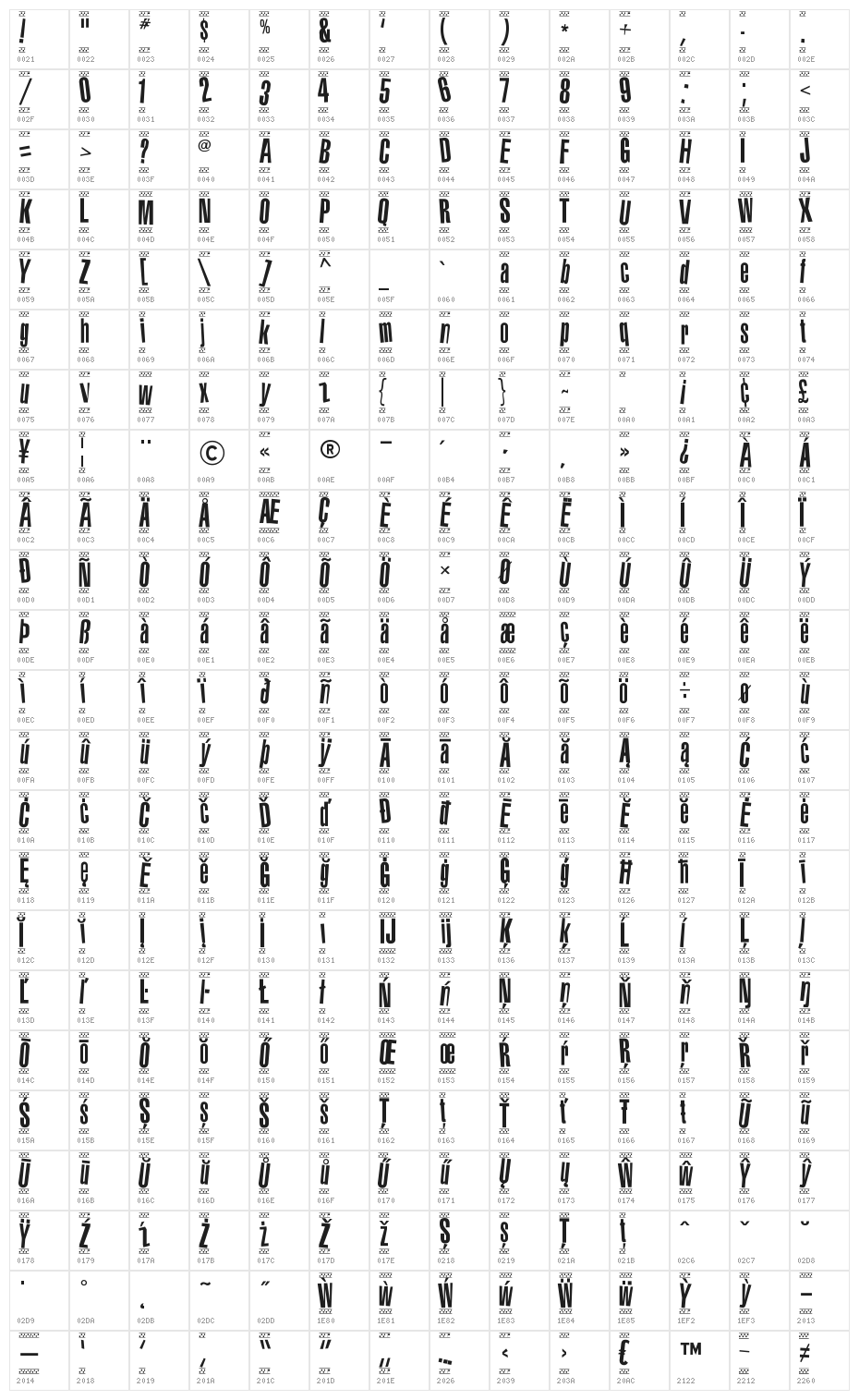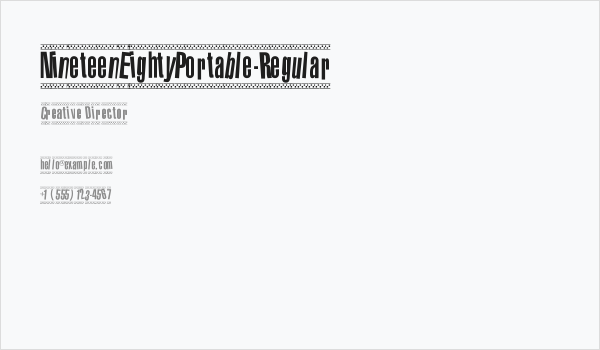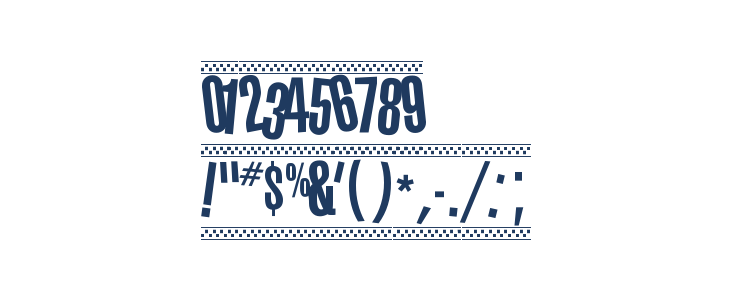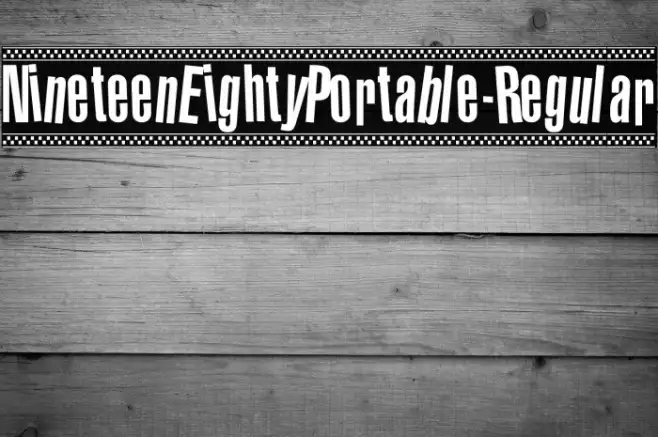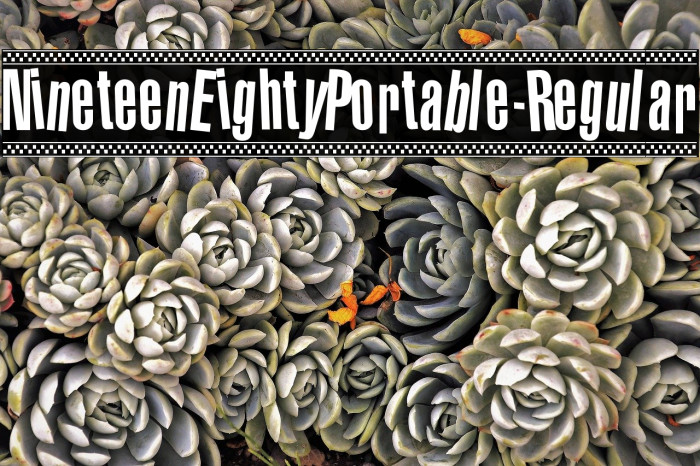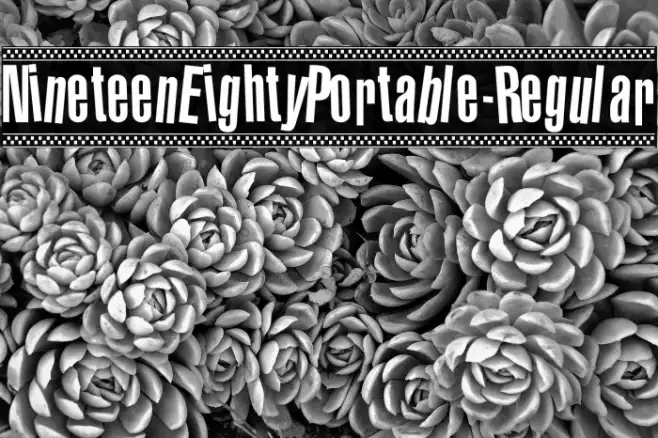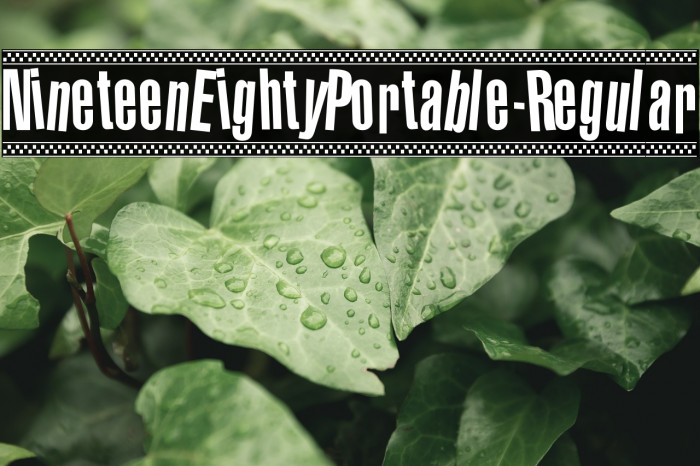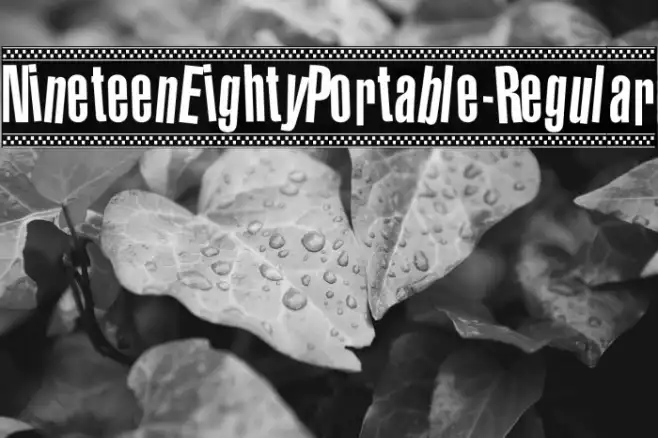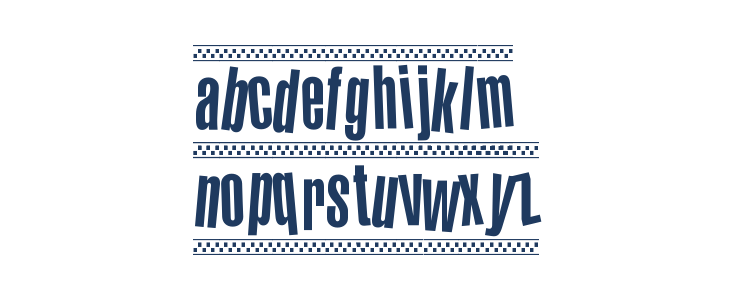
NineteenEightyPortable-Regular Font
NineteenEightyPortable-Regular Description
This font features a bold and dynamic style with a strong presence. The characters are tall and slightly condensed, giving a sense of urgency and movement. The uppercase letters are particularly striking, with sharp angles and a modern flair. The lowercase letters maintain the same boldness, ensuring consistency across text. The numerals are equally bold, making them stand out effectively. Special characters are designed to match the overall aesthetic, providing a cohesive look. This font is ideal for making a statement, with its high contrast and impactful design.
| Proposed Projects | Ideal for posters, headlines, branding, and any project requiring a strong visual impact. |